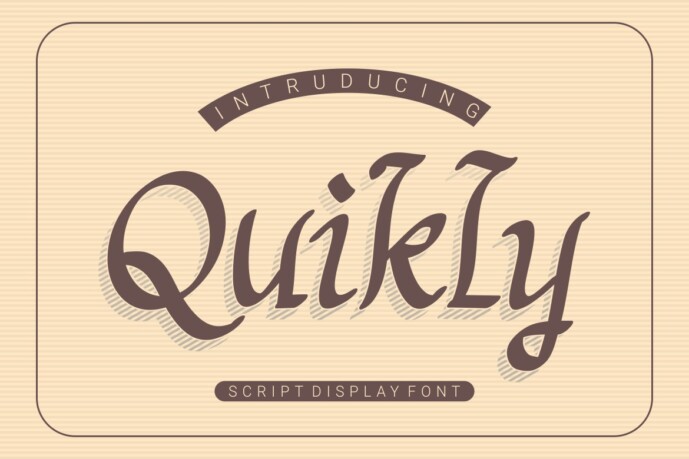
Quikly Font
Designer: Kenrichi
Quikly is a refined script display font that merges classic letterform structure with a modern twist. Featuring elegant strokes, stylized terminals, and subtle shading, it evokes a vintage charm while maintaining readability.
Ideal for boutique branding, packaging, editorial headlines, and artisan-style projects, this font blends sophistication with approachability in every curve.